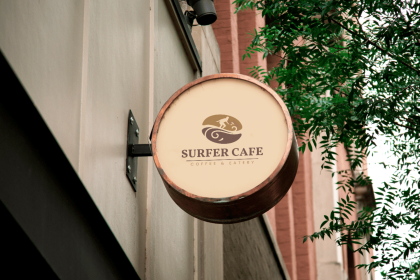
Finding the right coffee shop logo ideas can make a huge difference for small businesses trying to stand out in a competitive market. A coffee shop is more than a place to drink espresso; it’s an experience, a vibe, and often a community hub. Your logo becomes the first visual introduction to that experience.
Whether you are opening a cozy neighborhood café, a modern specialty coffee bar, or a takeaway espresso kiosk, your logo should reflect your brand personality. In this guide, we’ll explore creative coffee shop logo ideas that are practical, memorable, and perfect for small businesses.
Why Your Coffee Shop Logo Matters
Your logo appears everywhere:
- Store signage
- Coffee cups
- Packaging
- Social media
- Website
- Loyalty cards
For small businesses, consistency builds recognition. A well-designed coffee shop logo builds trust and helps customers remember your brand.
Recommended Fonts for Coffee Shop Logos
1. Minimalist Coffee Shop Logo Ideas
Why Minimal Logos Work
Minimal logos feel:
- Clean
- Modern
- Professional
- Easy to reproduce
For small businesses, simplicity reduces printing costs and ensures the logo works on cups, aprons, and digital platforms.
Design Tip
Use:
- Simple icon (coffee cup, bean, steam line)
- Clean sans-serif font
- Neutral color palette (black, cream, brown)
Minimal coffee shop logo ideas are especially effective for specialty coffee brands.
2. Vintage and Retro Coffee Logo Concepts
When to Use Vintage Style
If your café has:
- Rustic interior
- Wooden furniture
- Traditional brewing methods
- Handcrafted pastries
Then, vintage coffee shop logo ideas can reinforce your atmosphere.
Typography Suggestions
- Bold serif fonts
- Retro display fonts
- Script accents for a handcrafted feel
This style communicates authenticity and tradition.
3. Handwritten Logo Ideas for Cozy Cafés
Handwritten fonts create a personal and friendly impression.
Why Handwritten Fonts Feel Inviting
Small businesses often thrive on community connections. Handwritten logo styles feel:
- Warm
- Casual
- Personal
- Approachable
They work beautifully for:
- Neighborhood cafés
- Family-owned coffee shops
- Artisan coffee brands
However, always prioritize readability.
4. Icon-Based Coffee Shop Logo Ideas
Popular Coffee Icons
- Coffee beans
- Coffee cups
- Latte art
- Steam swirls
- Coffee plant branches
Pair icons with strong typography for balance.
Color Psychology in Coffee Branding
Color influences how customers perceive your café.
Popular Coffee Logo Colors
- Brown (earthy, natural)
- Black (modern, premium)
- Cream (warm, inviting)
- Green (organic, eco-friendly)
- Gold (luxury coffee experience)
Keep your palette simple to maintain brand consistency.
Practical Tips for Small Businesses
Small business owners often work with limited budgets. Here are practical suggestions:
1. Keep It Scalable
Your logo must look good on:
- Large signage
- Small cup sleeves
- Instagram profile images
2. Test in Black and White
If it works in black and white, it will work in color.
3. Prioritize Readability
Customers should recognize your café name instantly.
Final Thoughts on Coffee Shop Logo Ideas
Choosing the right coffee shop logo ideas helps small businesses create strong first impressions and long-term brand recognition. Your logo should reflect your café’s personality, whether that’s cozy, modern, vintage, or premium.
By combining thoughtful typography, clear icon design, and strategic color choices, small businesses can create logos that feel professional and memorable without overcomplicating the design.
Remember: a strong logo builds familiarity, and familiarity builds loyalty.